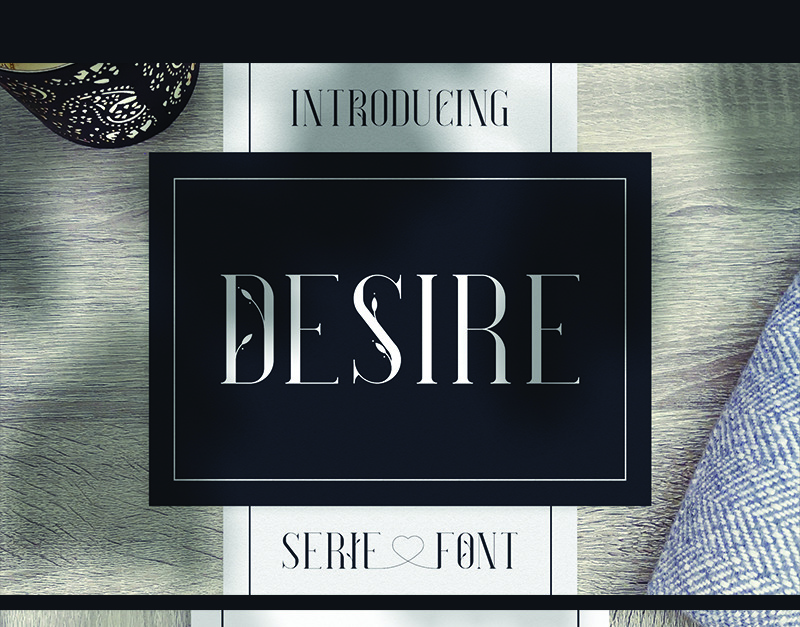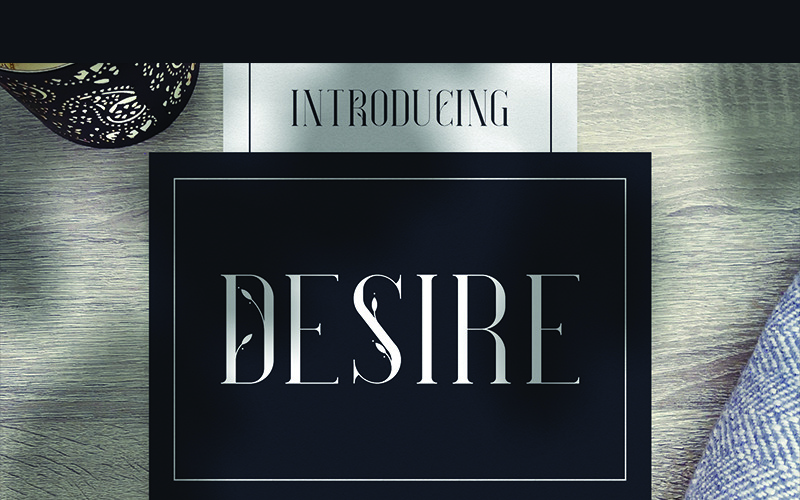
Desire Font
Desire is elegant, wedding font with 2 styles, alternative glyphs and multilingual support. It's a very versatile font that works great in large and small sizes.
Desire is perfect for branding projects, home-ware designs, product packaging, magazine headers - or simply as a stylish text overlay to any background image.
- Uppercase,lowercase, numeral,punctuation & Symbol
- Regular
- Outline
- Multilingual support
- Heart shaped alternative glyphs